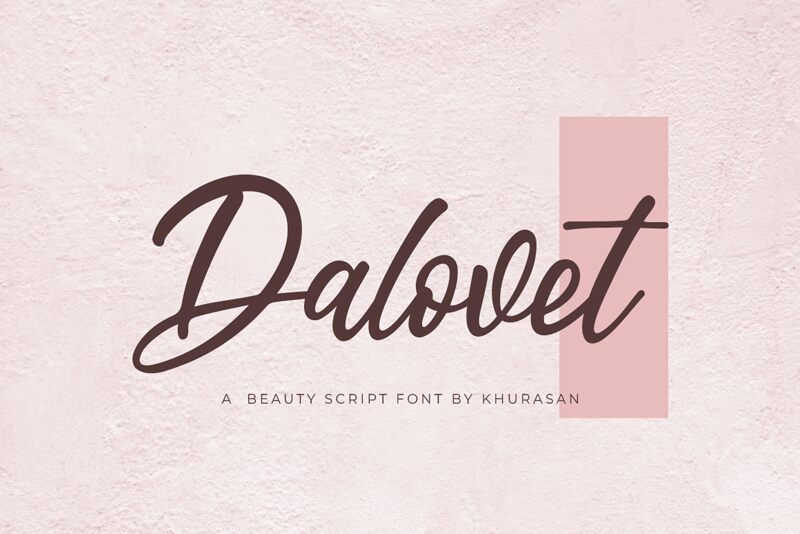
Dalovet
The stylish handwritten font Dalovet by Khurasan is perfect for adding a modern, light touch to your projects. It's ideal for use in logo designs, invitations, and scrapbooking - anywhere you need a unique, fun font.